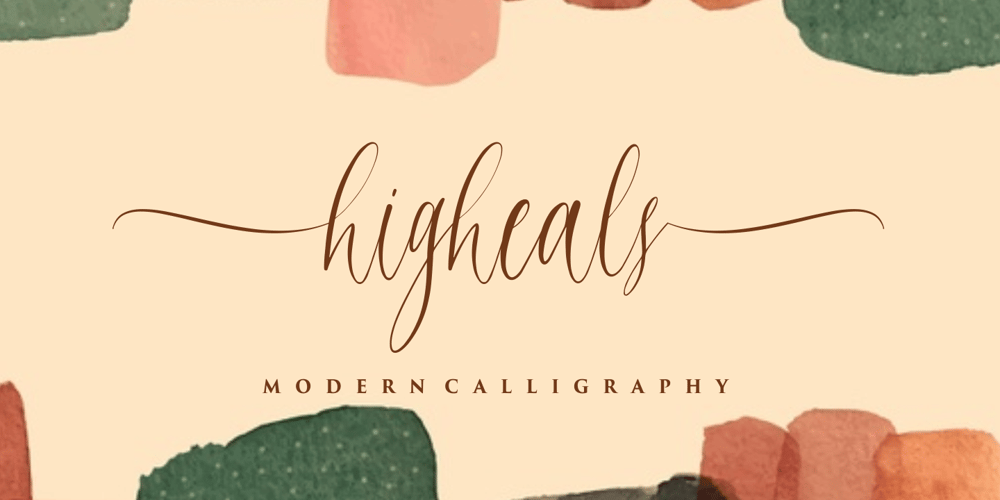
Higheals Font Family was designed by Muhammad Fikry and published by Fikryal. Higheals contains 1 styles and family package options. Higheals is a natural calligraphy font perfect for crafting, branding, invitation, stationery, wedding designs, social media posts, advertisements, product packaging, product designs, label, photography, watermark, special events, or anything.Higheals comes with full set of uppercase and lowercase letters, swash alternates, ligatures,multilingual symbols, numerals and punctuation.